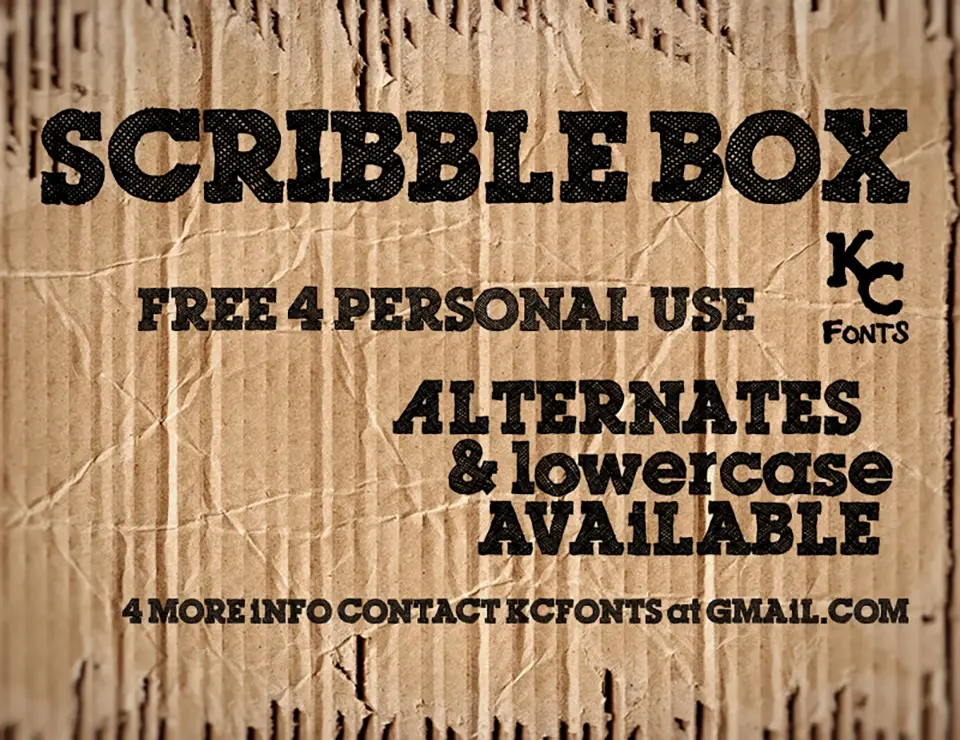
Scribble Box Font
Scribble Box is a bold and playful display font featuring textured, sketched characters perfect for creative projects. Designed with an imperfect, hand-drawn aesthetic, this decorative typeface excels in posters, packaging, labels, book covers, and magazine designs. The font’s rough texture and unique character design make it ideal for projects requiring personality and visual interest. With its distinctive scribbled appearance and medium weight, Scribble Box brings a creative, informal energy to any design while maintaining excellent readability for headlines and display purposes.